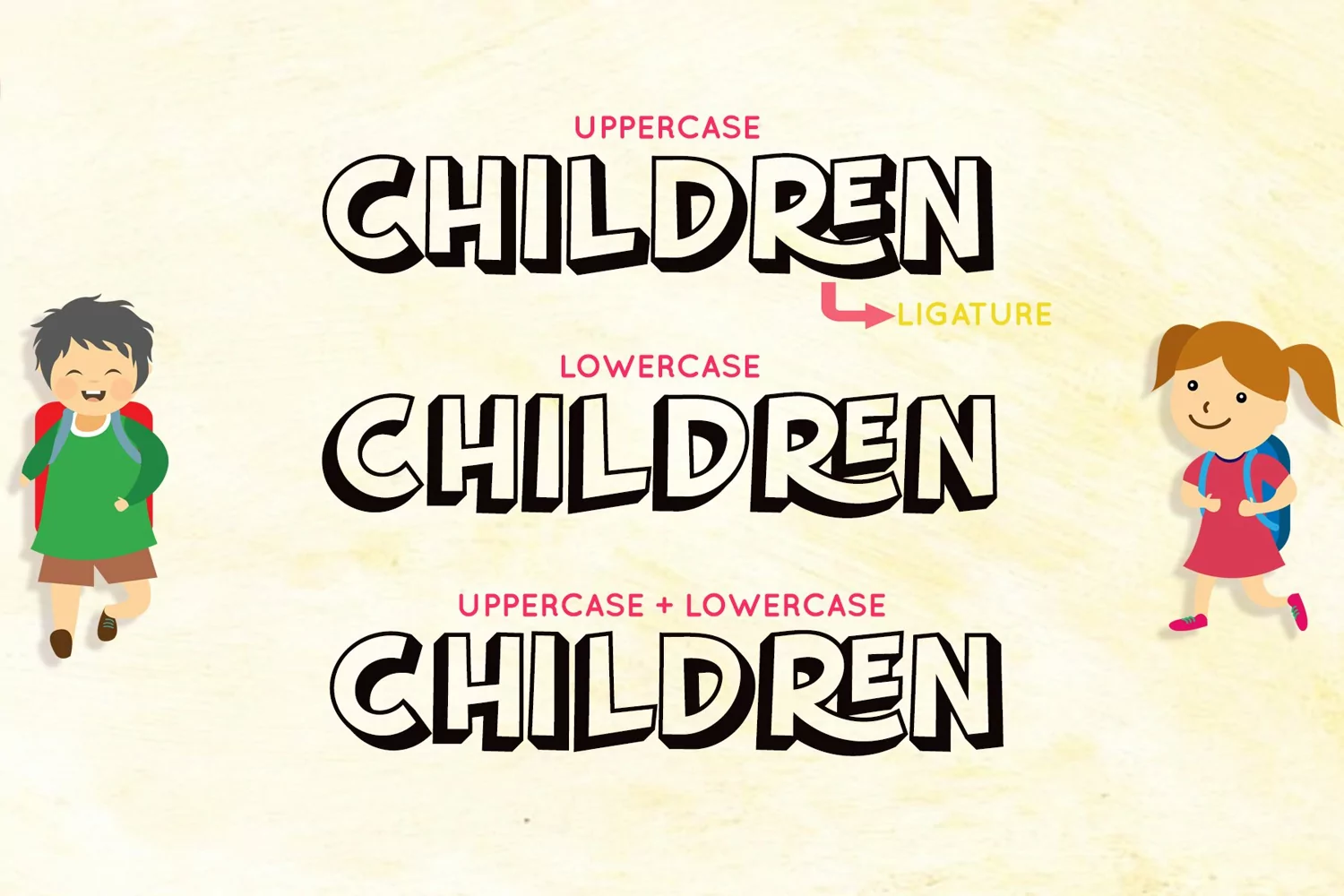
Hollow Letters is fun and playful display font with 3D look. As its name, this is hollow font.
Hollow Letters is perfect font for any children design and playful project, such as school theme, kindergarten, comic, cartoon, t-shirt quotes, stickers, and many others.